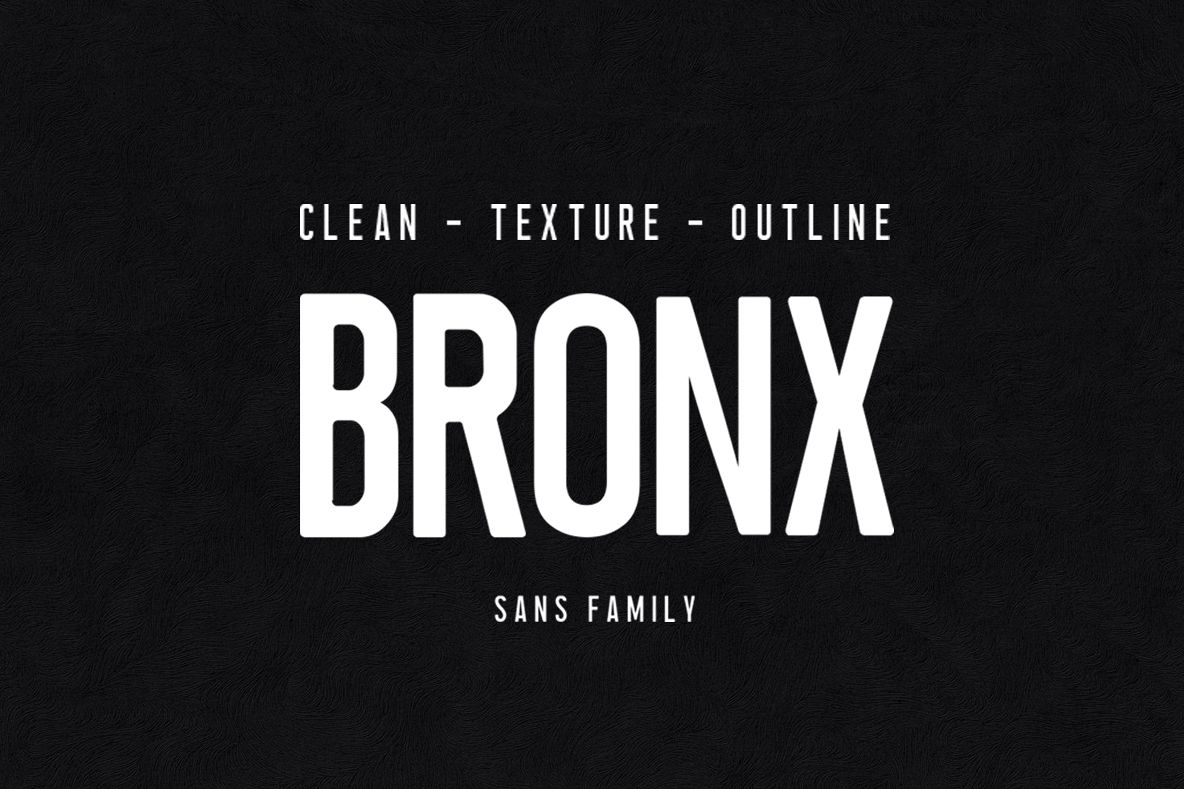
Bronx has 3 different versions, namely rough clean, distortions and outlines.
with all caps features, capital letters alts and multilingual. works great in any branding, logos, magazines, packaging or anything to suit your needs